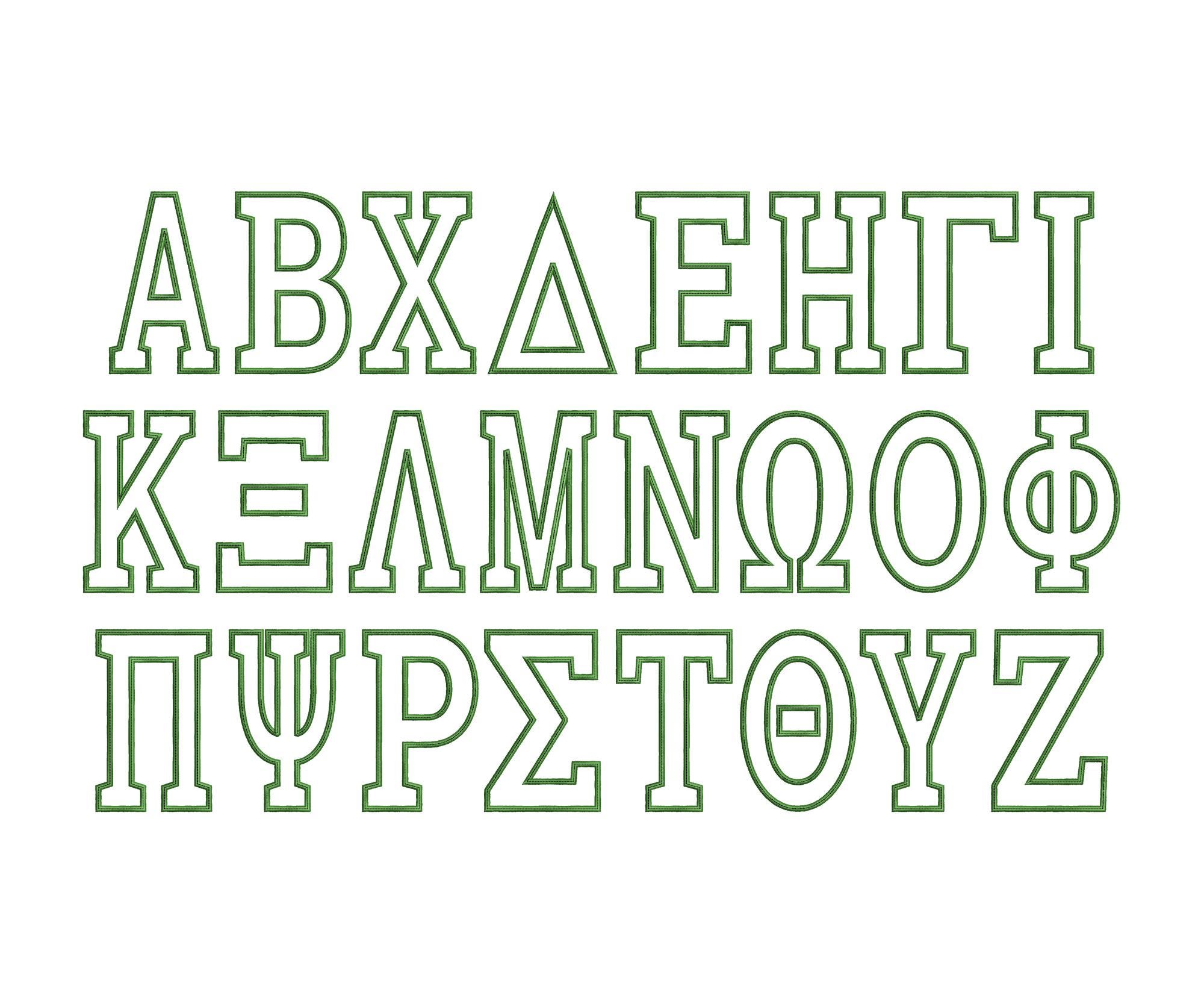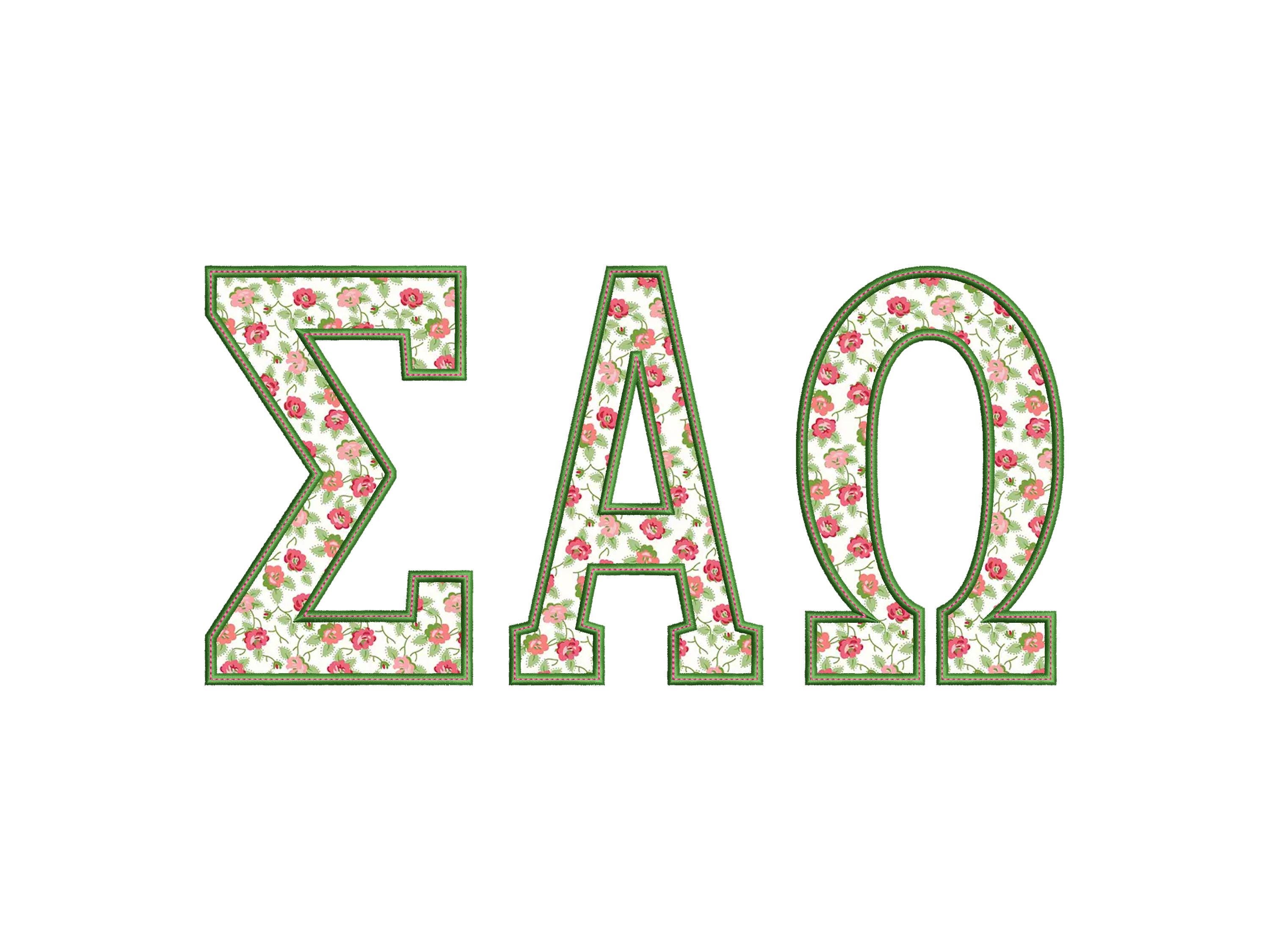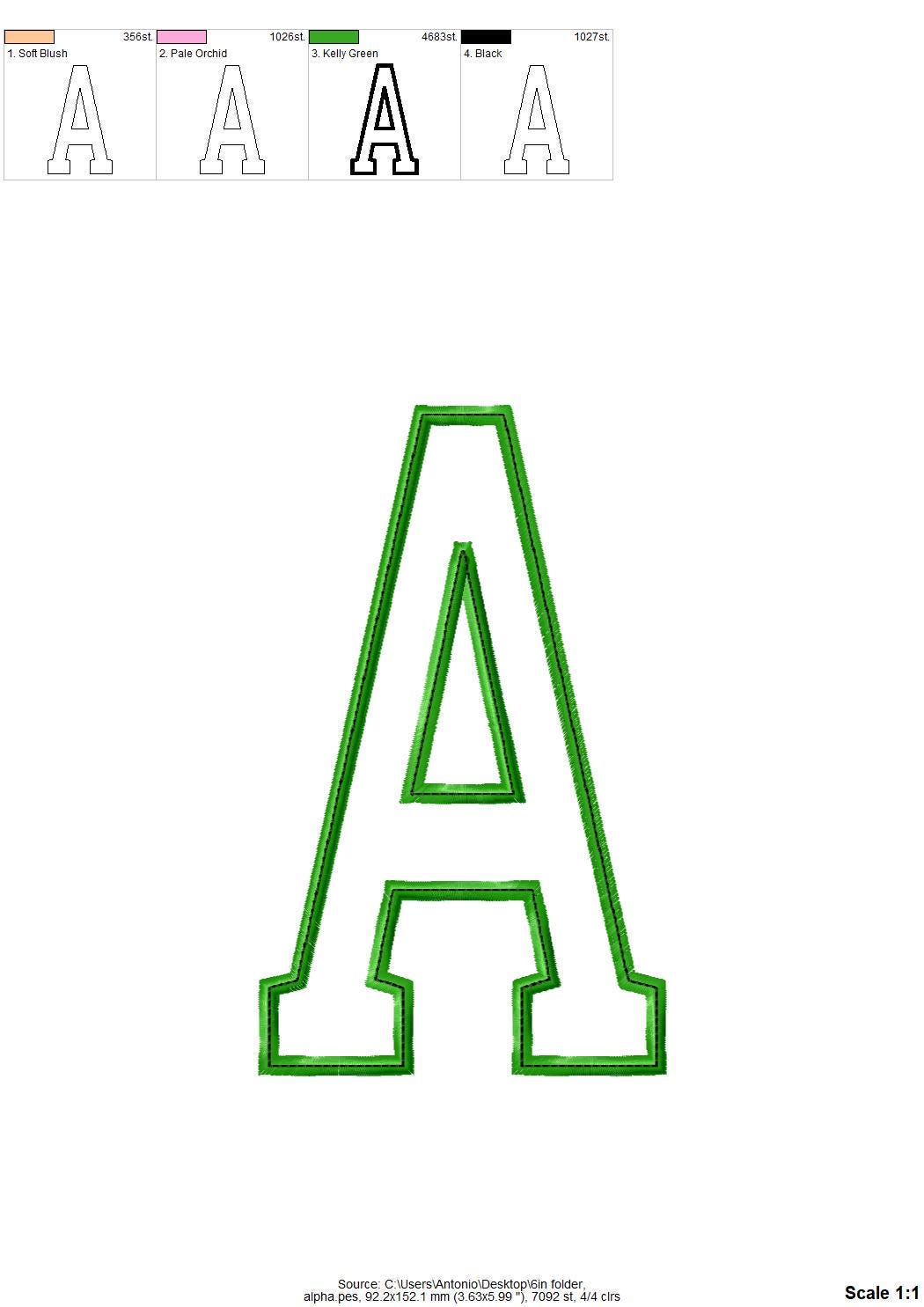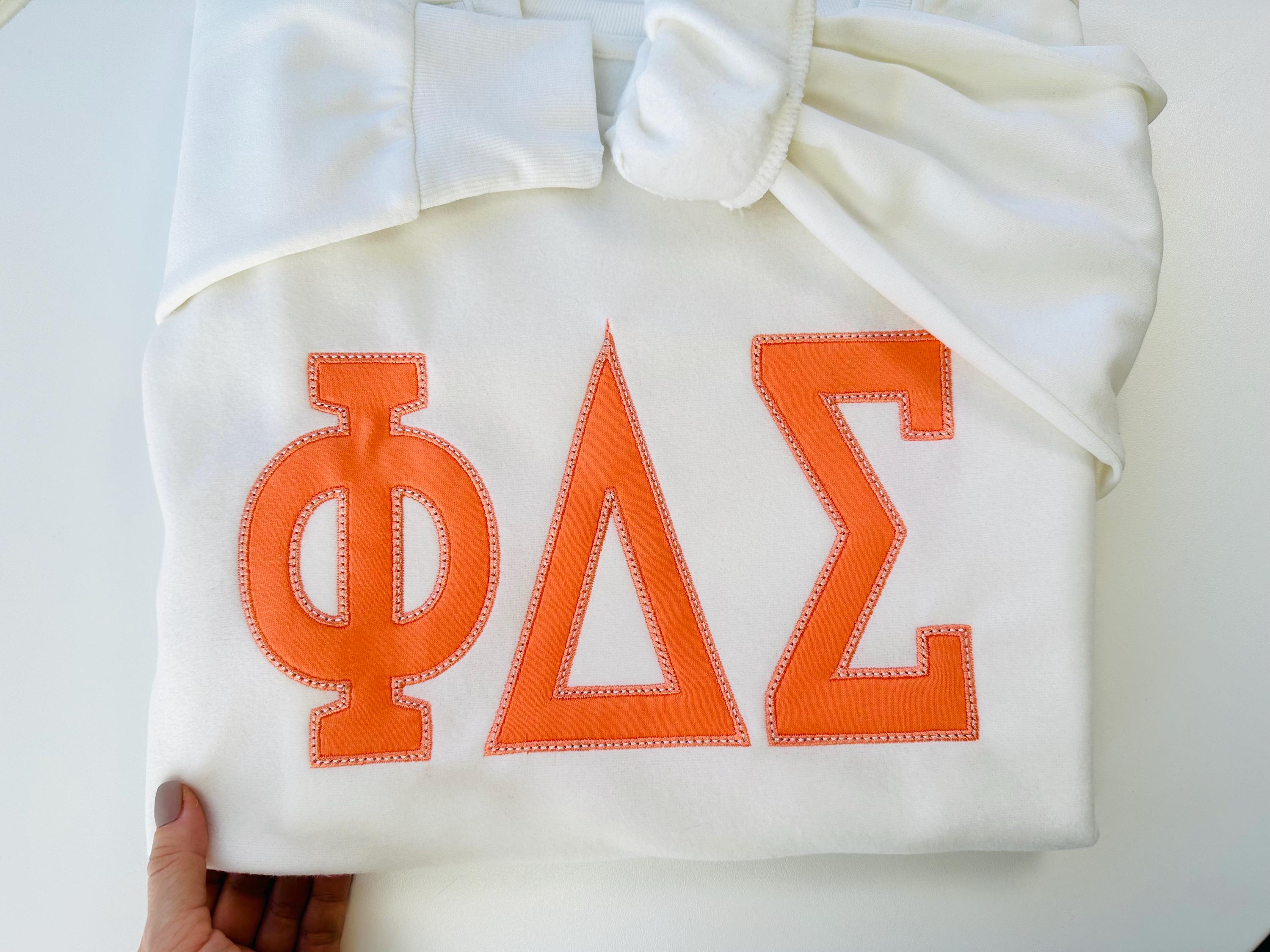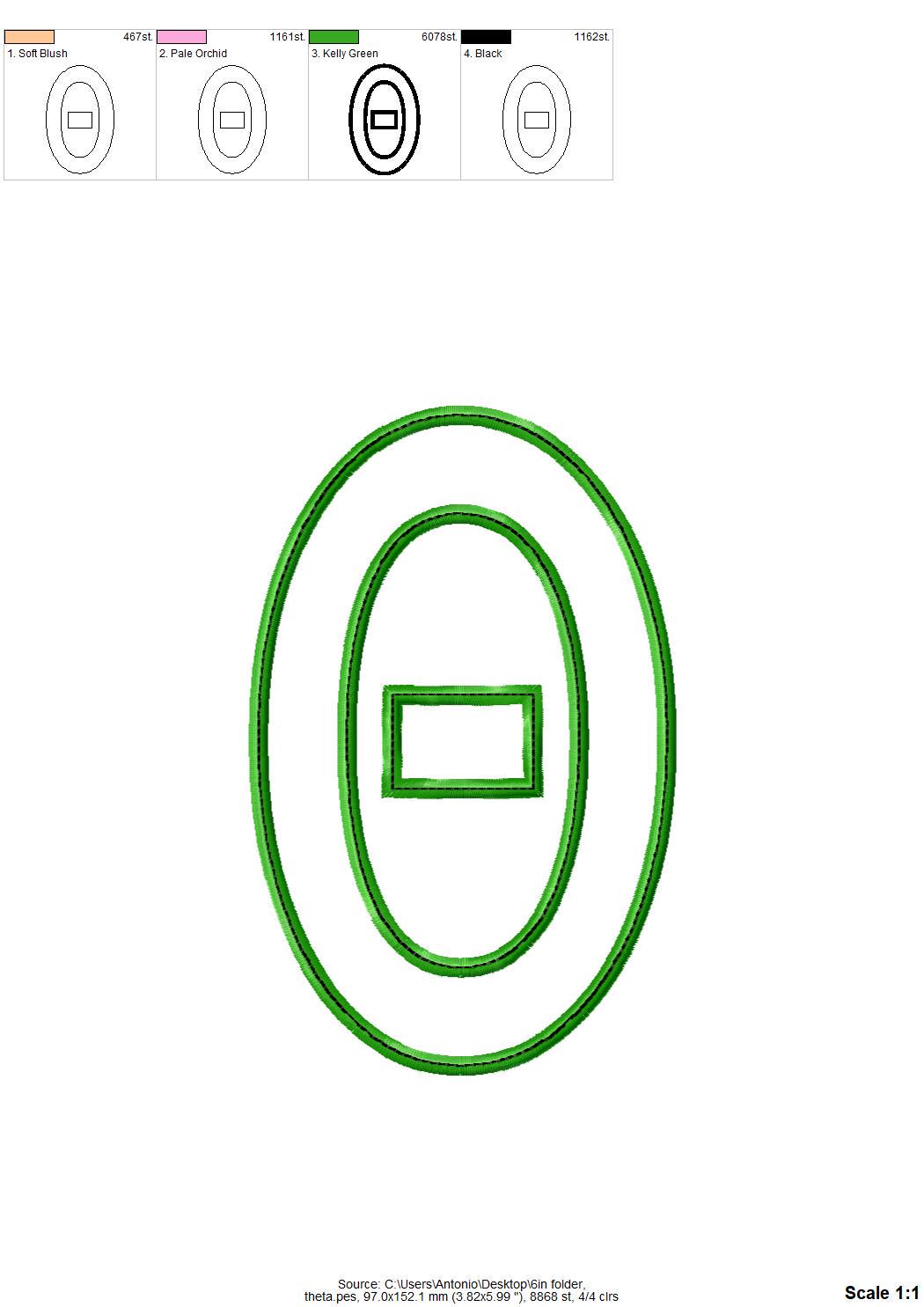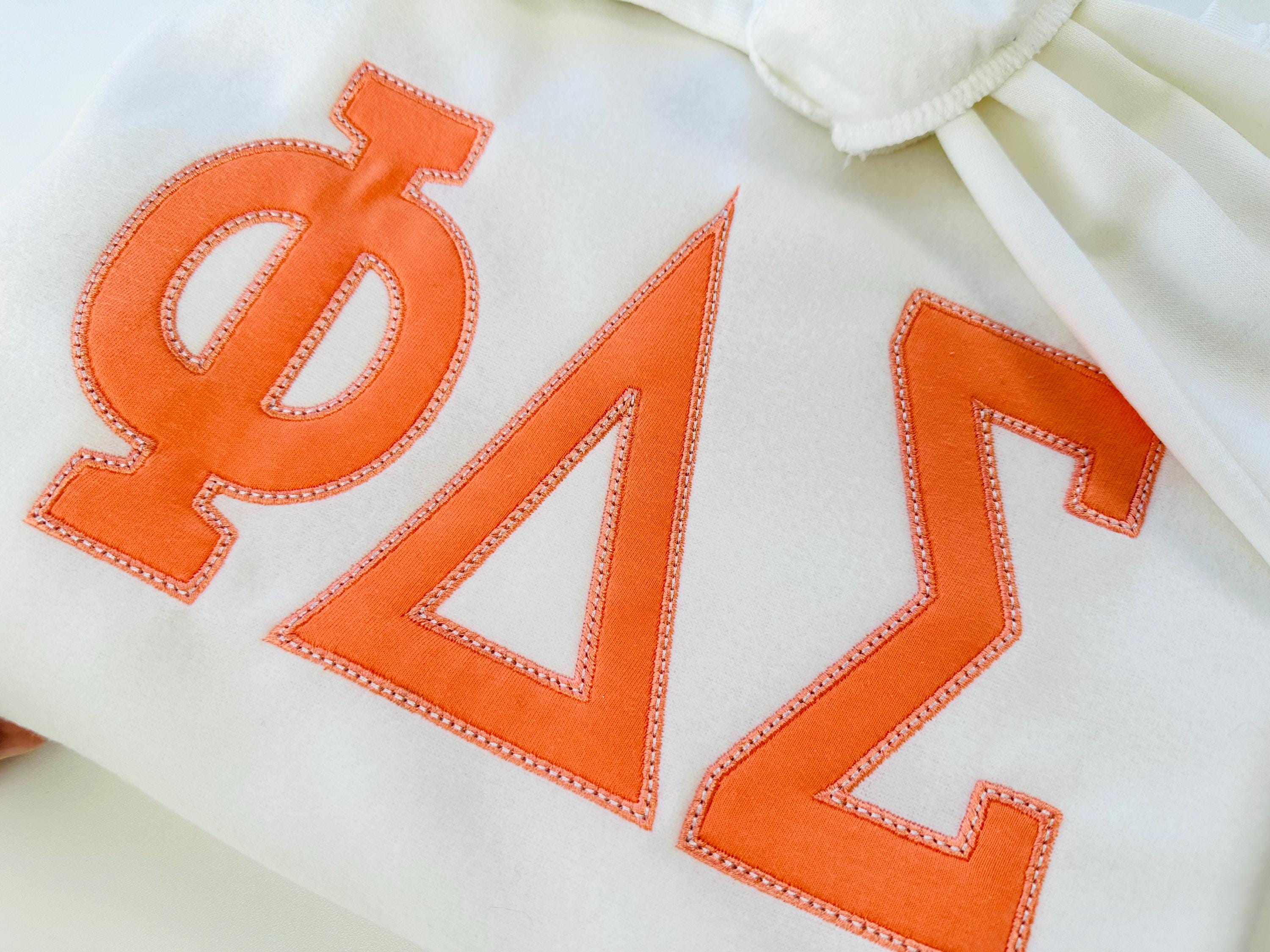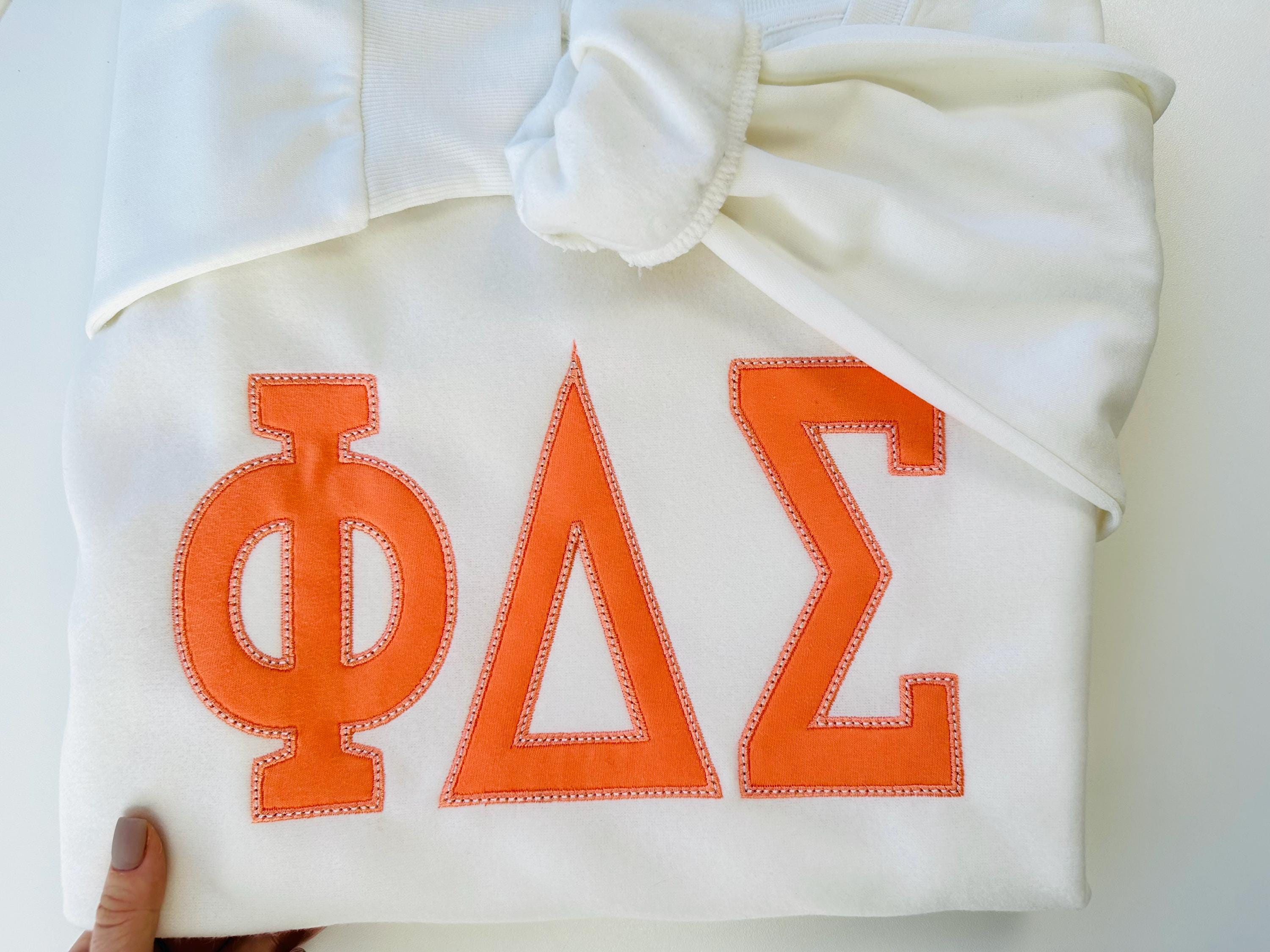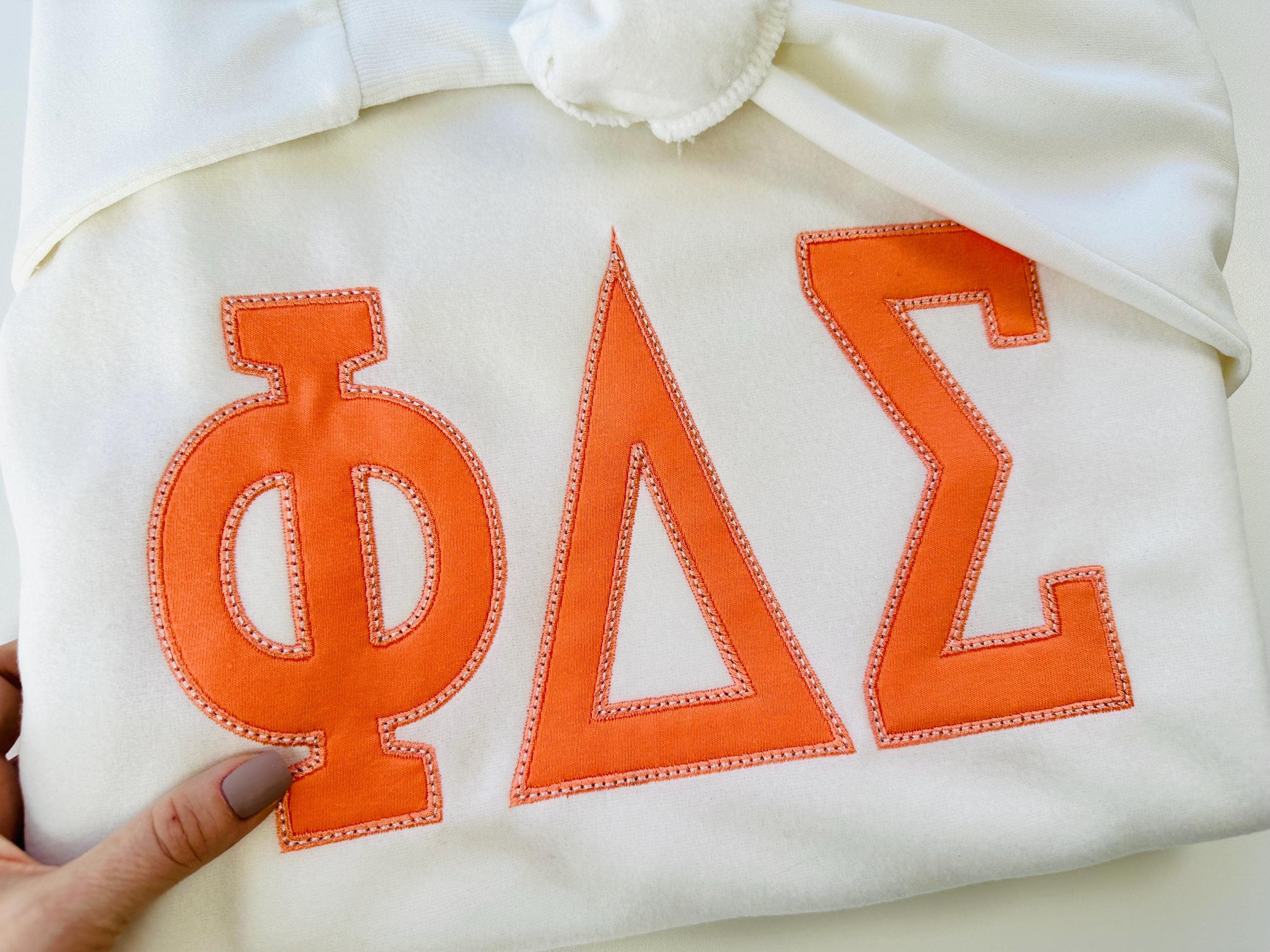
Big sizes Greek font Applique machine embroidery designs Greek alphabet monogram letters sororities fraternities large sizes 4 up to 8 inch
Whole alphabet includes 24 Greek letters.
The font has a nice satin stitch outline and a neat stitch on top of the satin (optional, you can skip it).